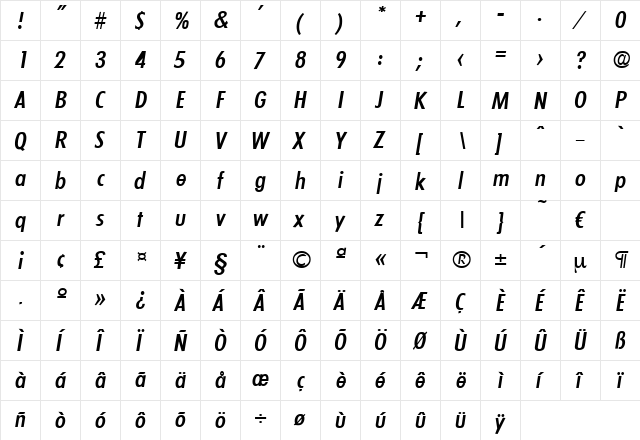
Limerick-MediumCondIta Regular
Design Context for Limerick-MediumCondIta Typeface
Limerick-MediumCondIta takes a measured approach to typography — its balanced proportions and neutral character make it a reliable workhorse for both digital and print work. The condensed width makes it efficient for tight spaces without sacrificing legibility.